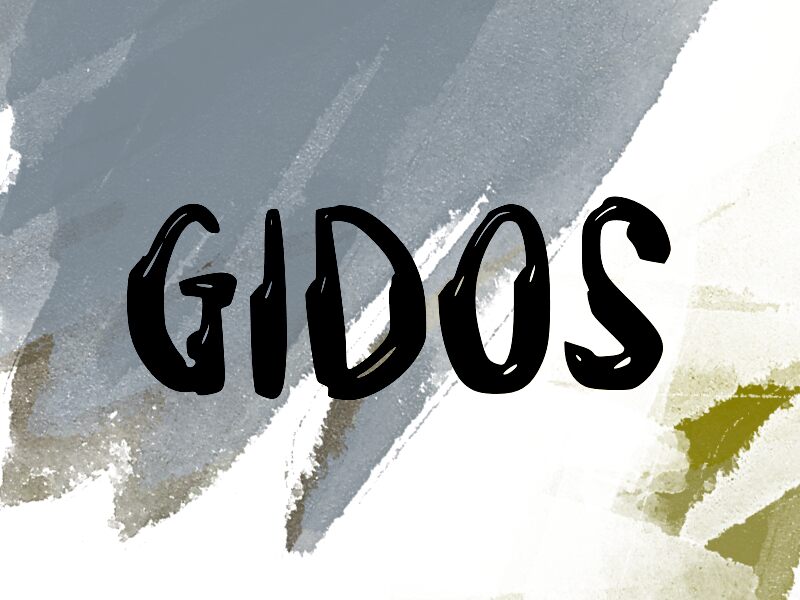
GIDOS
Gidos is a striking display font that exudes a bold and dynamic presence. Designed by wep, this font boasts a unique blend of angular forms and flowing curves, creating a mesmerizing visual aesthetic. The irregular, organic shapes and dramatic flourishes evoke a sense of movement and energy, making Gidos an exceptional choice for attention-grabbing designs.
This font's versatility shines through its ability to add visual impact to a wide range of applications, from headings and titles to promotional materials and branding. Gidos' strong character and distinctive personality make it an ideal selection for designers seeking to create dynamic and memorable typographic compositions.